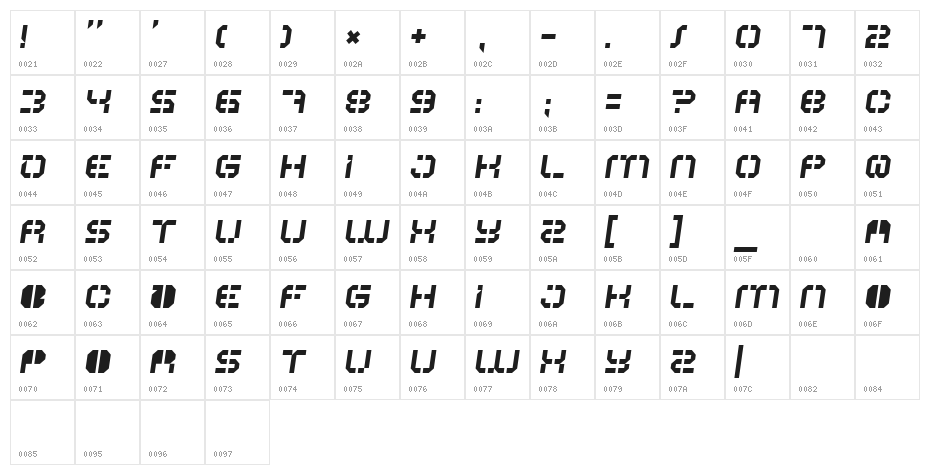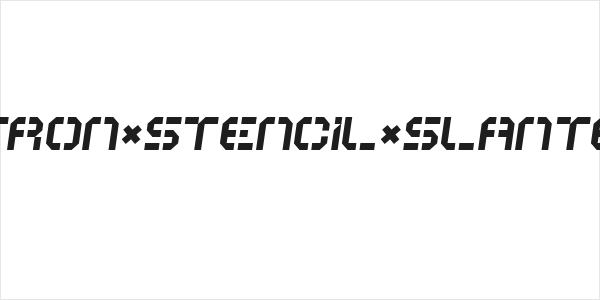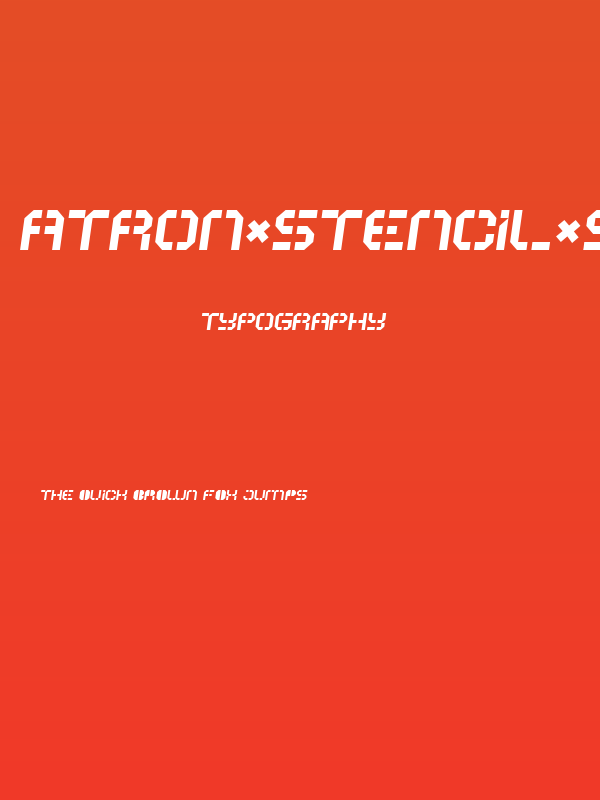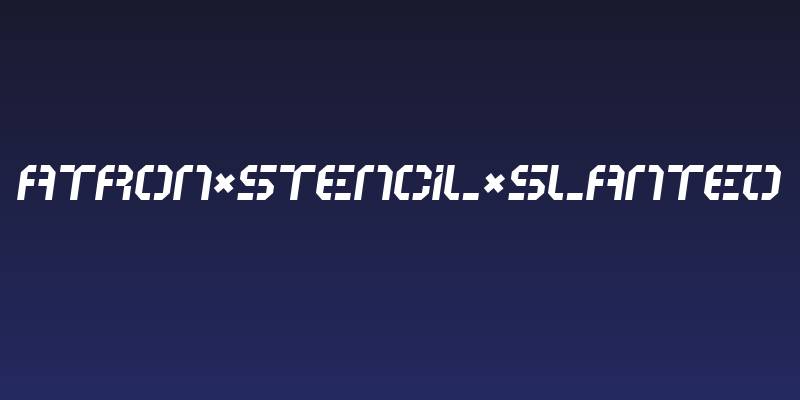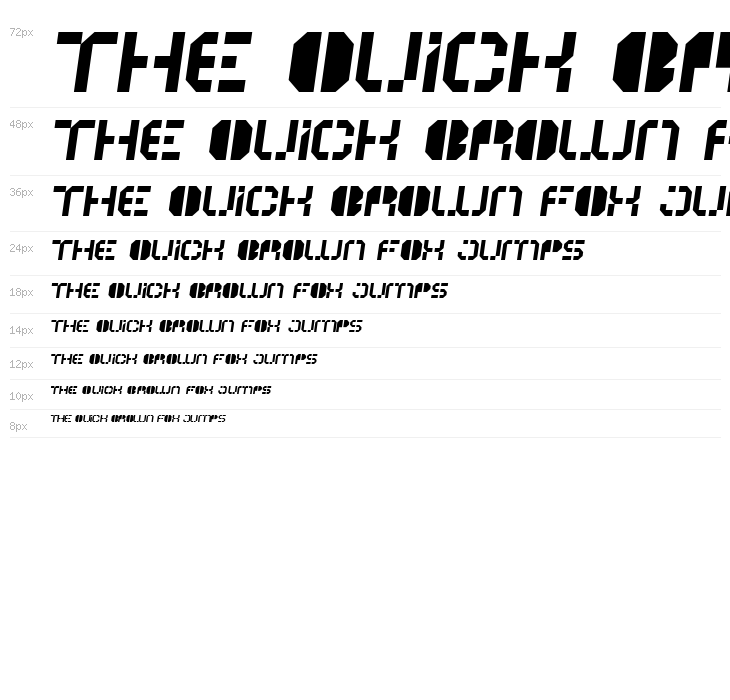
ATRON*STENCIL*SLANTED Font
ATRON*STENCIL*SLANTED Description
This font features a bold, stencil-like design with a distinct slant, giving it a dynamic and modern appearance. The characters are constructed with geometric precision, incorporating sharp angles and cut-out sections that create a unique, industrial feel. The uppercase and lowercase letters maintain a consistent style, with the slant adding a sense of motion and energy. The numerals and special characters follow the same design principles, ensuring uniformity across all elements. This font is highly legible despite its decorative nature, making it suitable for various applications where a strong visual impact is desired.
| Proposed Projects | Ideal for branding, posters, and signage where a modern, industrial look is desired. |